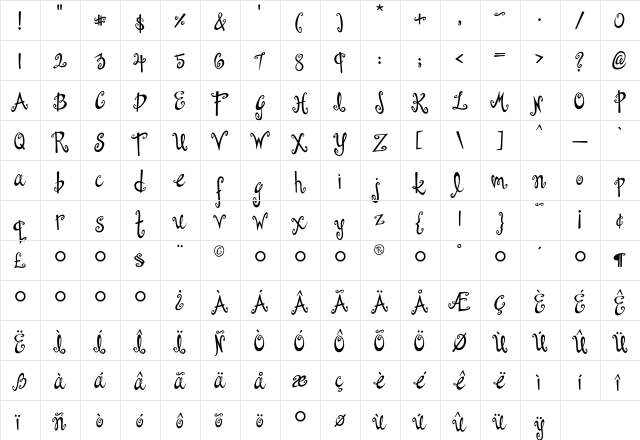
Dollhouse Regular
Design Context for Dollhouse Typeface
Dollhouse is a composed and adaptable typeface that performs quietly and consistently across a wide range of design contexts.
Pro Tip: Pair Dollhouse with a font of contrasting weight or personality to build a more expressive typographic hierarchy.